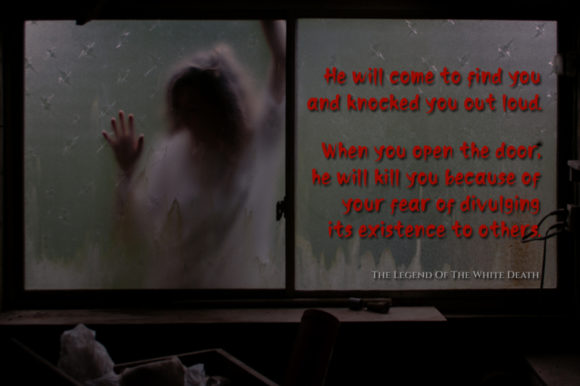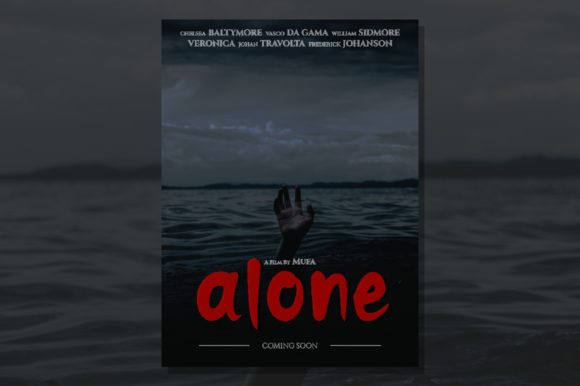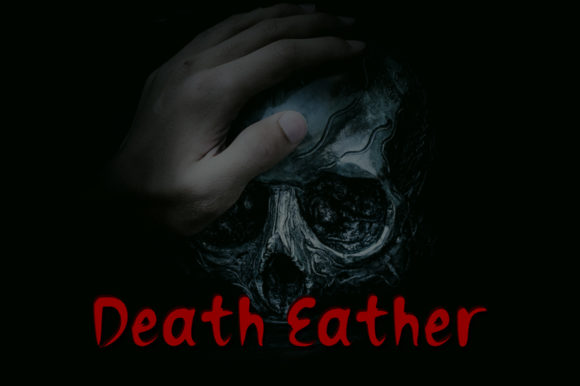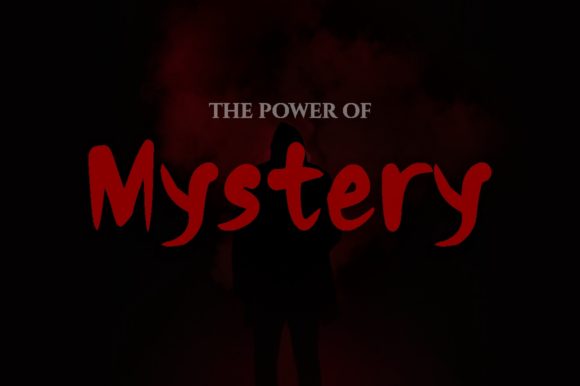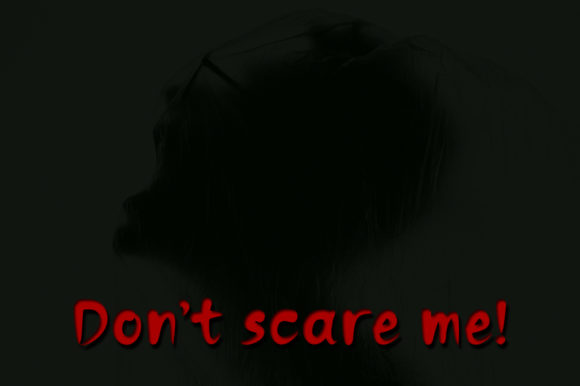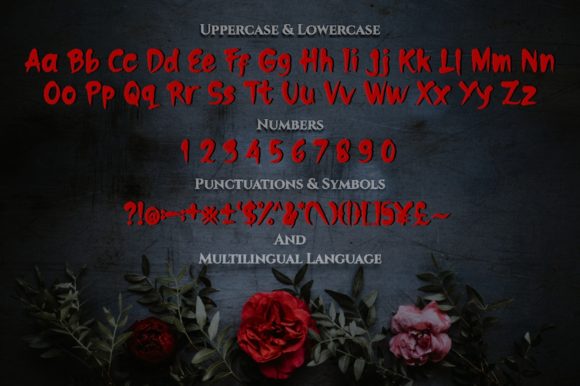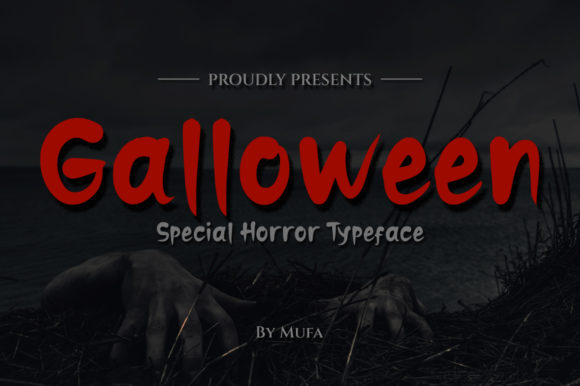
Galloween Font: The Spookiest Display Typeface for Horror and Halloween Designs
Are you looking for a font that can add a spooky touch to your designs? Look no further than the Galloween Font! This display typeface is specifically designed to evoke the horror and eeriness of the Halloween season, making it perfect for horror film posters, Halloween festival products, and any design that requires a horror look.
What is Galloween Font?
Galloween Font is a unique and terrifyingly awesome display typeface that is sure to make your designs stand out. Its spooky and creepy design makes it an ideal choice for designers who want to create horror-themed designs that will leave their audience shivering with fear.
Key Features of Galloween Font
• Spooky and Creepy Design: Galloween Font features a spooky and creepy design that is perfect for horror-themed designs.
• Display Typeface: This font is specifically designed as a display typeface, making it perfect for headlines, titles, and other display purposes.
• Perfect for Horror Film Posters: The Galloween Font is perfectly suited for horror film posters, adding a touch of horror and eeriness to your designs.
• Ideal for Halloween Festival Products: This font is also ideal for Halloween festival products, such as invitations, flyers, and other promotional materials.
Benefits of Using Galloween Font
• Adds a Spooky Touch: Galloween Font adds a spooky touch to your designs, making them perfect for horror-themed designs.
• Unique and Eye-Catching: This font is unique and eye-catching, making your designs stand out from the crowd.
• Perfect for Seasonal Designs: Galloween Font is perfect for seasonal designs, such as Halloween and horror-themed designs.
• High-Quality Design: This font features a high-quality design that is sure to impress your audience.
Design Ideas Using Galloween Font
Here are some design ideas that you can use Galloween Font for:
• Horror Film Posters: Use Galloween Font to create eye-catching horror film posters that will leave your audience shivering with fear.
• Halloween Invitations: Create spooky and creepy Halloween invitations using Galloween Font.
• Festival Flyers: Use Galloween Font to create festival flyers that will promote your Halloween event.
• Social Media Graphics: Create spooky and creepy social media graphics using Galloween Font.
In conclusion, Galloween Font is a spooky display typeface that is perfect for horror film posters, Halloween festival products, and any design that requires a horror look. Its unique and eye-catching design makes it an ideal choice for designers who want to create horror-themed designs that will leave their audience shivering with fear. So, download Galloween Font today and add a spooky touch to your designs!